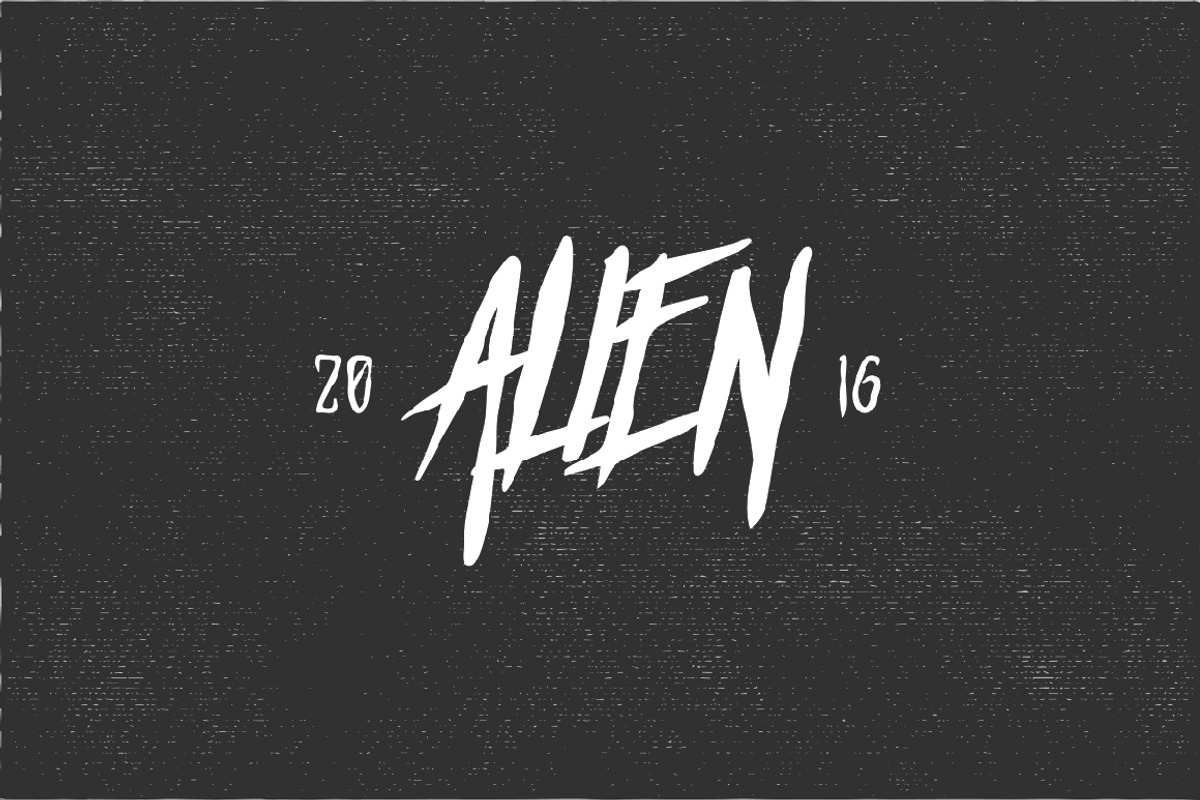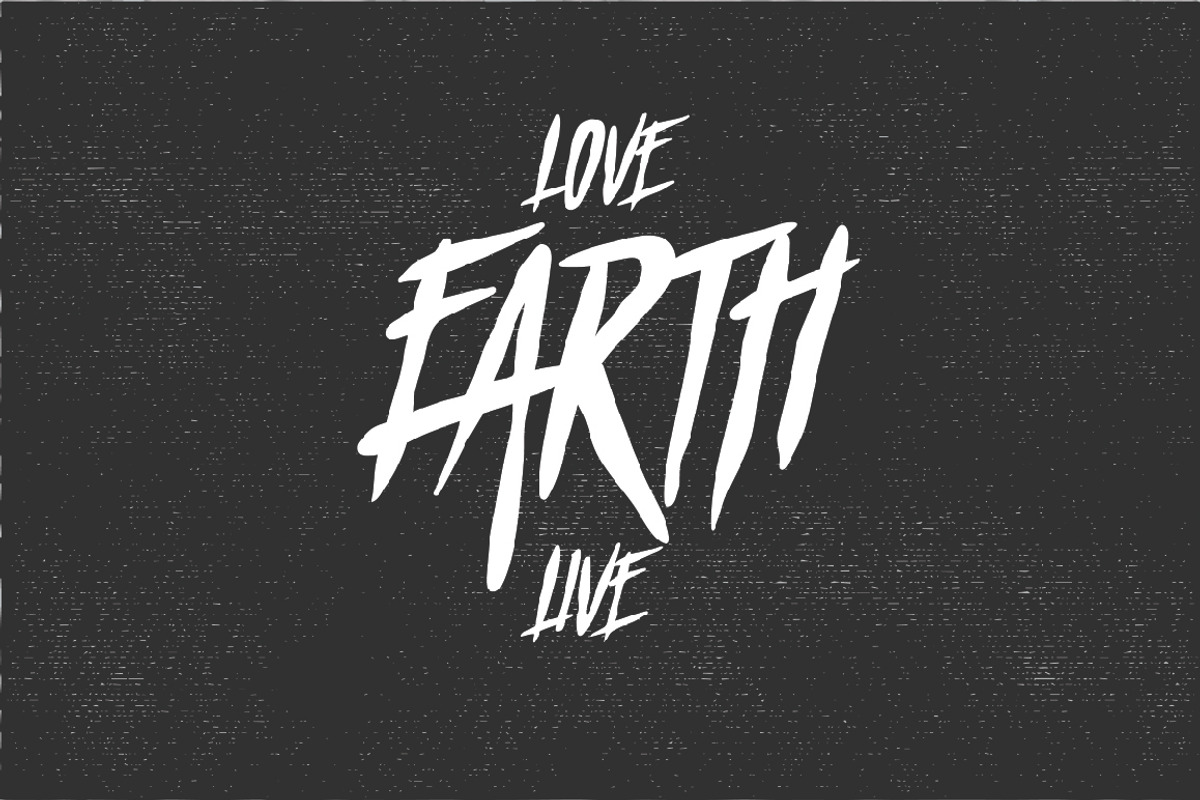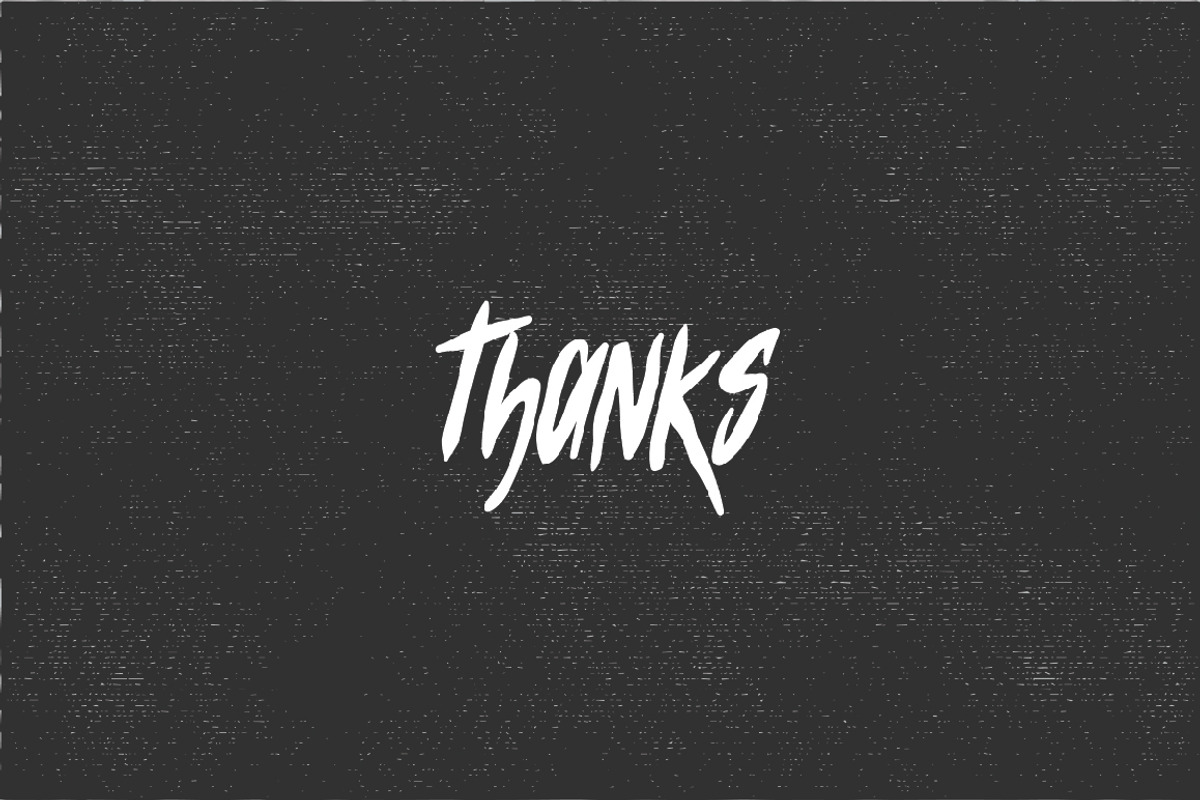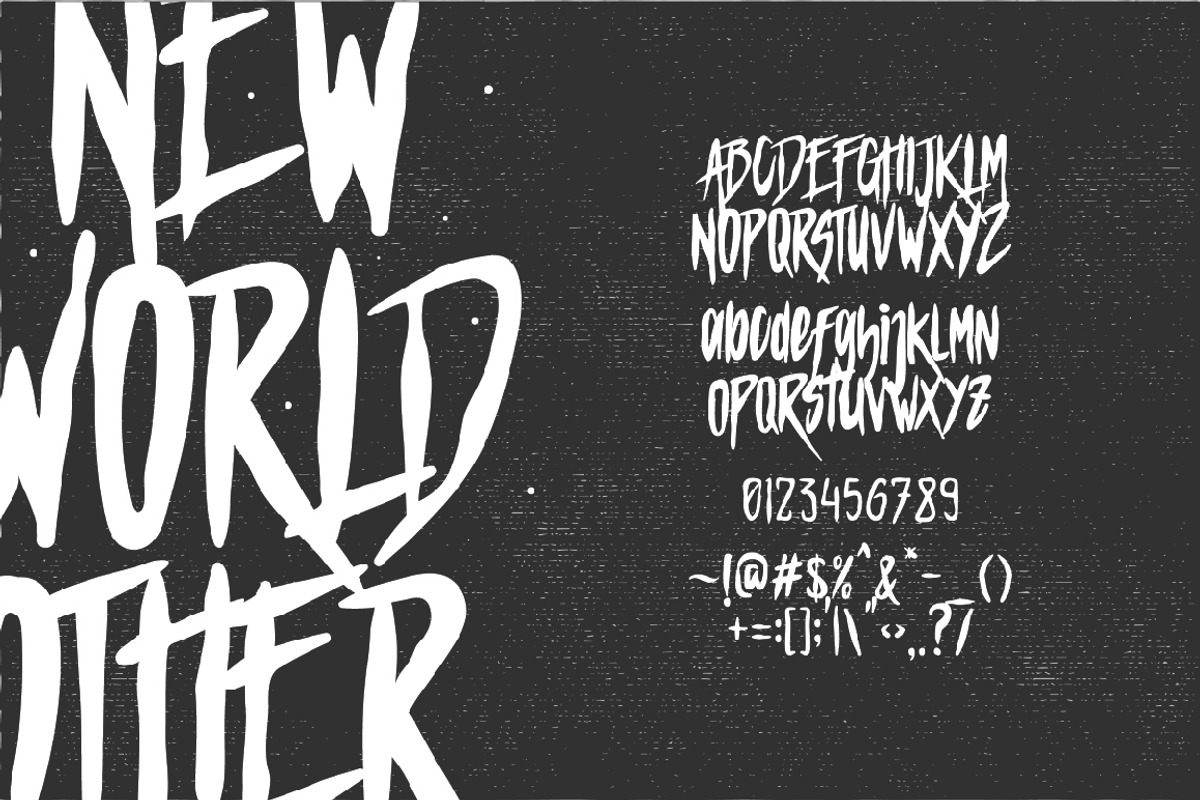
Mars Attack Typeface - Discount 50%
Mars Attack Typeface - Discount 50% by giemons™ is a font selected for branding, posters, packaging, typography.
Mars Attack Typeface - Discount 50% by giemons™ fits naturally into Branding, posters, packaging, typography.